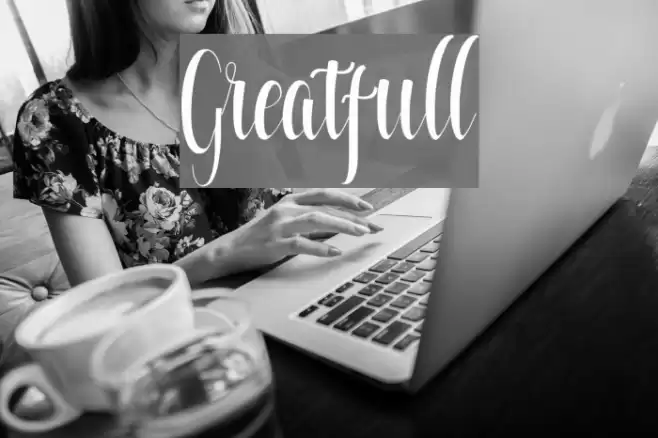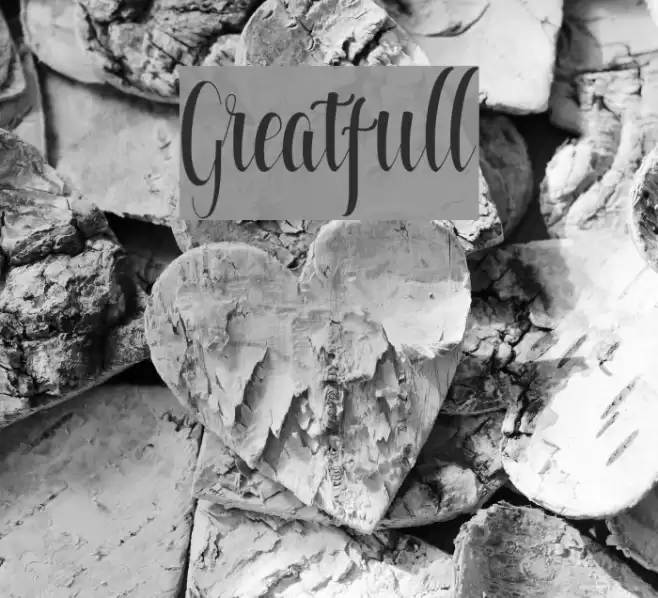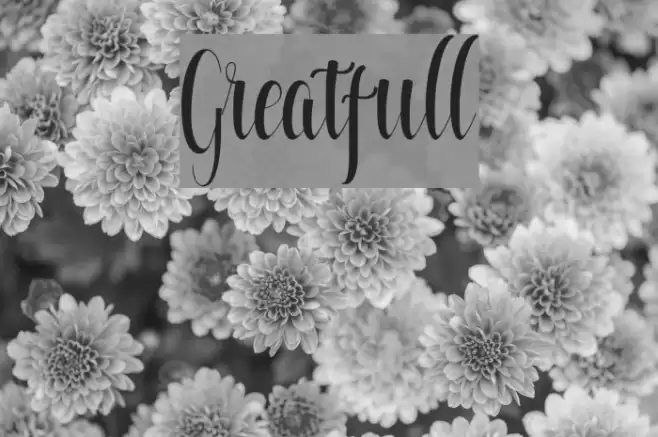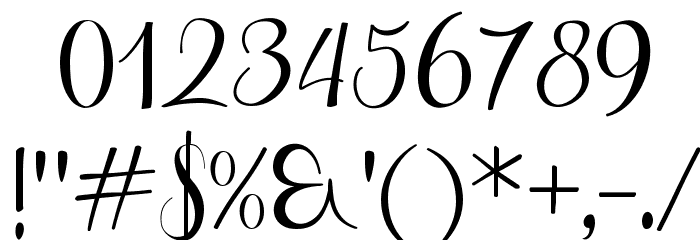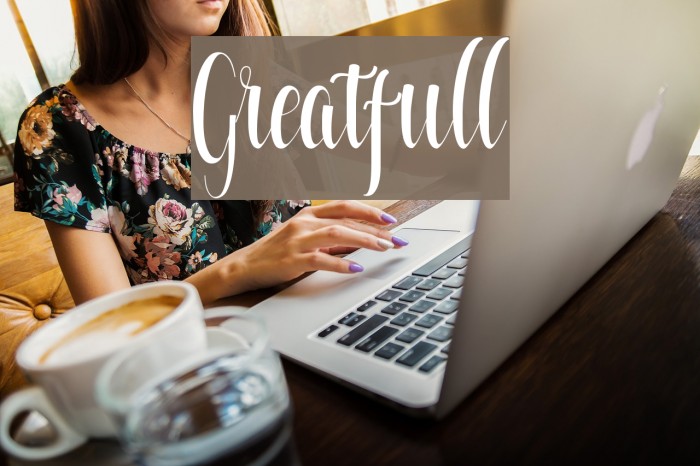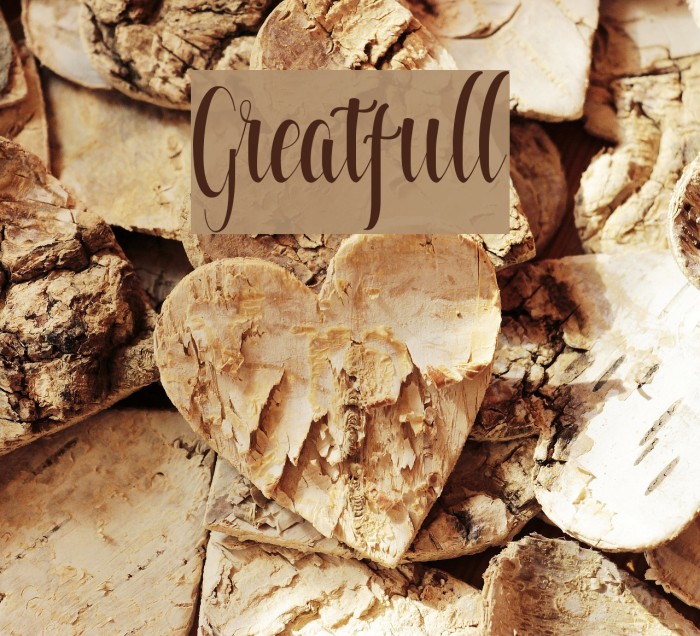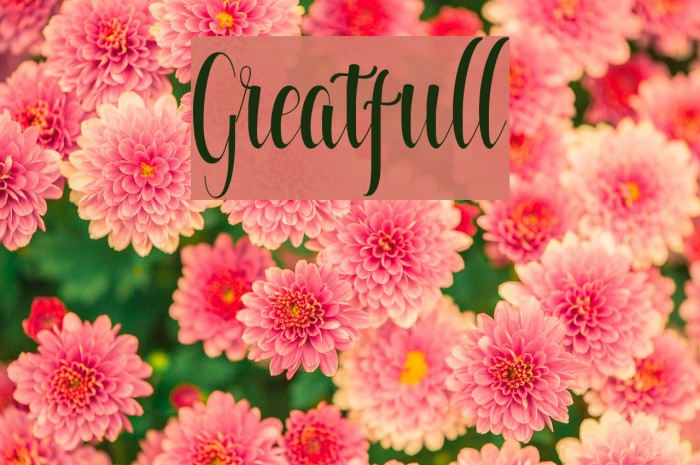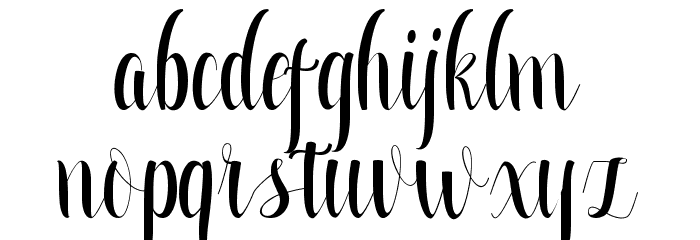
Greatfull Font
Greatfull Description
This elegant script font features a flowing, cursive style with high contrast between thick and thin strokes. The uppercase letters are tall and graceful, with sweeping curves and loops that give a sense of fluidity and motion. The lowercase letters maintain a consistent style, with rounded forms and smooth connections that enhance readability. The numerals are distinct and stylish, complementing the overall aesthetic. Special characters are thoughtfully designed, maintaining the font's sophisticated and artistic flair. This font is perfect for projects that require a touch of elegance and sophistication.
An elegant script font with high contrast and flowing, cursive style from Uncategorized fonts.
- Proposed Projects: Ideal for wedding invitations, elegant branding, luxury packaging, and artistic posters.
- Overall Style: Elegant
- Use Case: Logos, Invitations, Decorative text